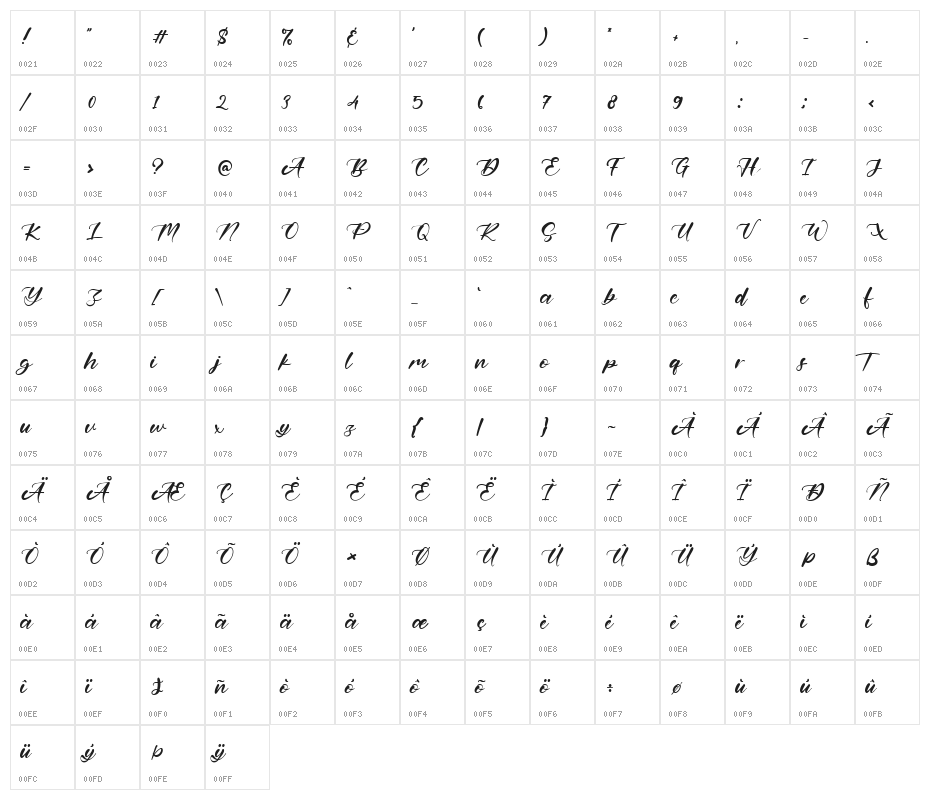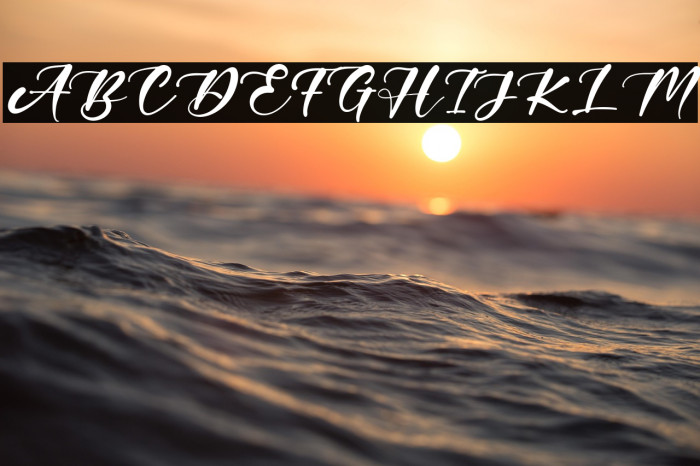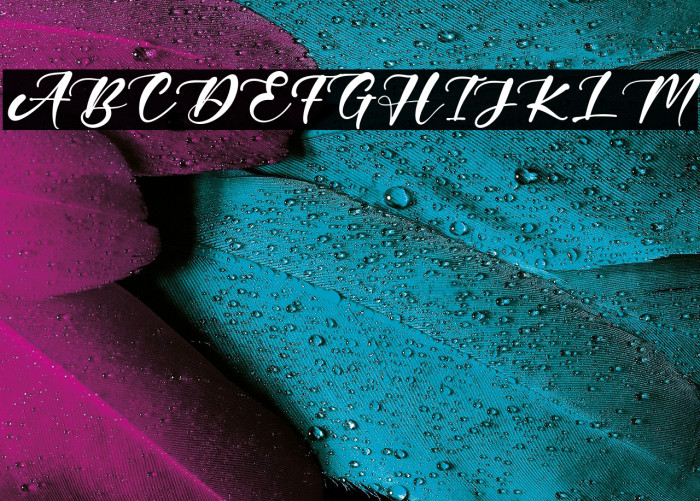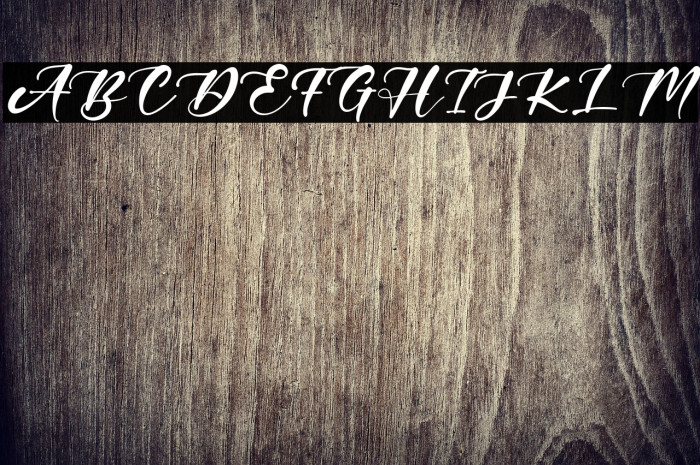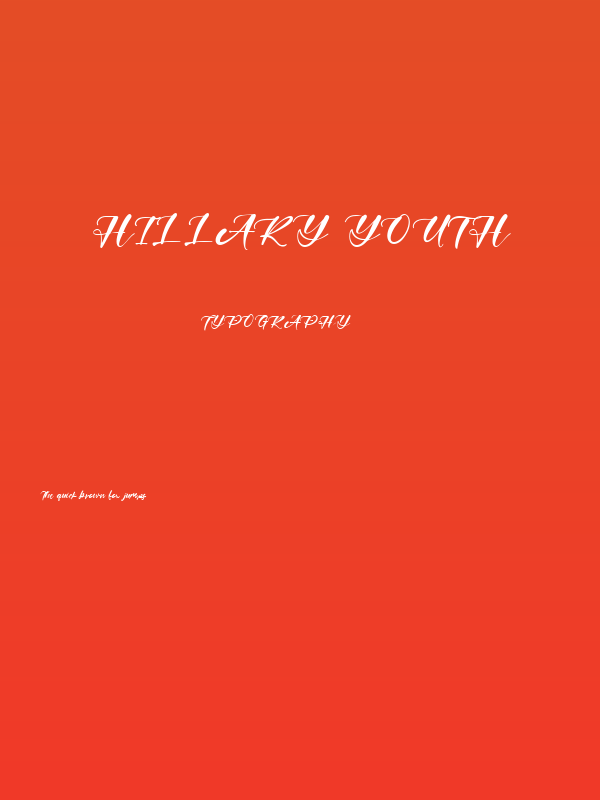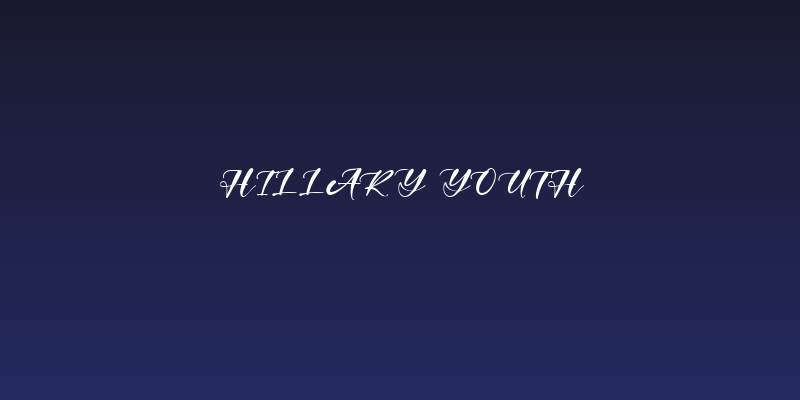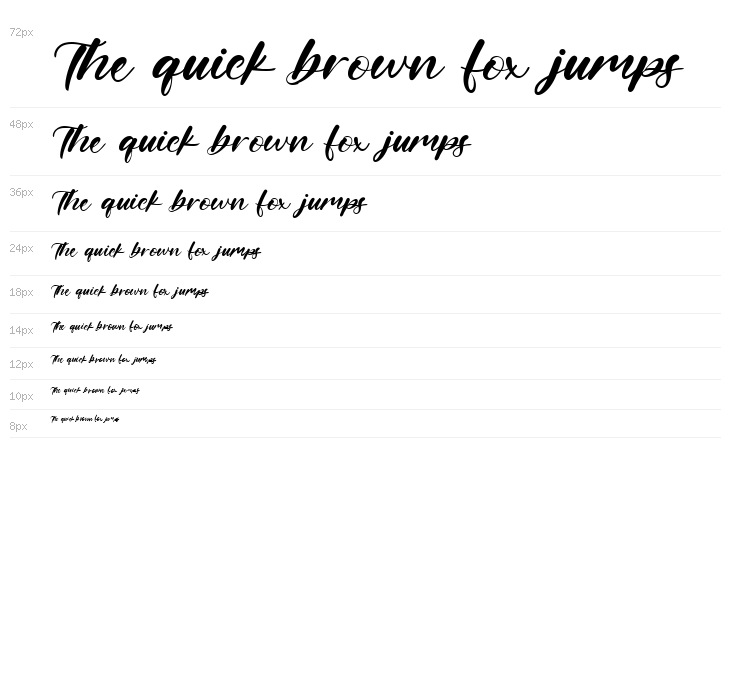
Hillary Youth Font
Hillary Youth Description
This elegant script font features a flowing, cursive style with a modern twist. The uppercase letters are characterized by their sweeping curves and intricate loops, giving a sense of sophistication and grace. The lowercase letters maintain a consistent flow, with some characters featuring distinctive flourishes that add a touch of whimsy. The numerals are bold and slightly rounded, complementing the overall aesthetic. Special characters are designed with the same attention to detail, ensuring a cohesive look across all glyphs. This font is perfect for projects that require a personal, handwritten touch while maintaining a sense of elegance and style.